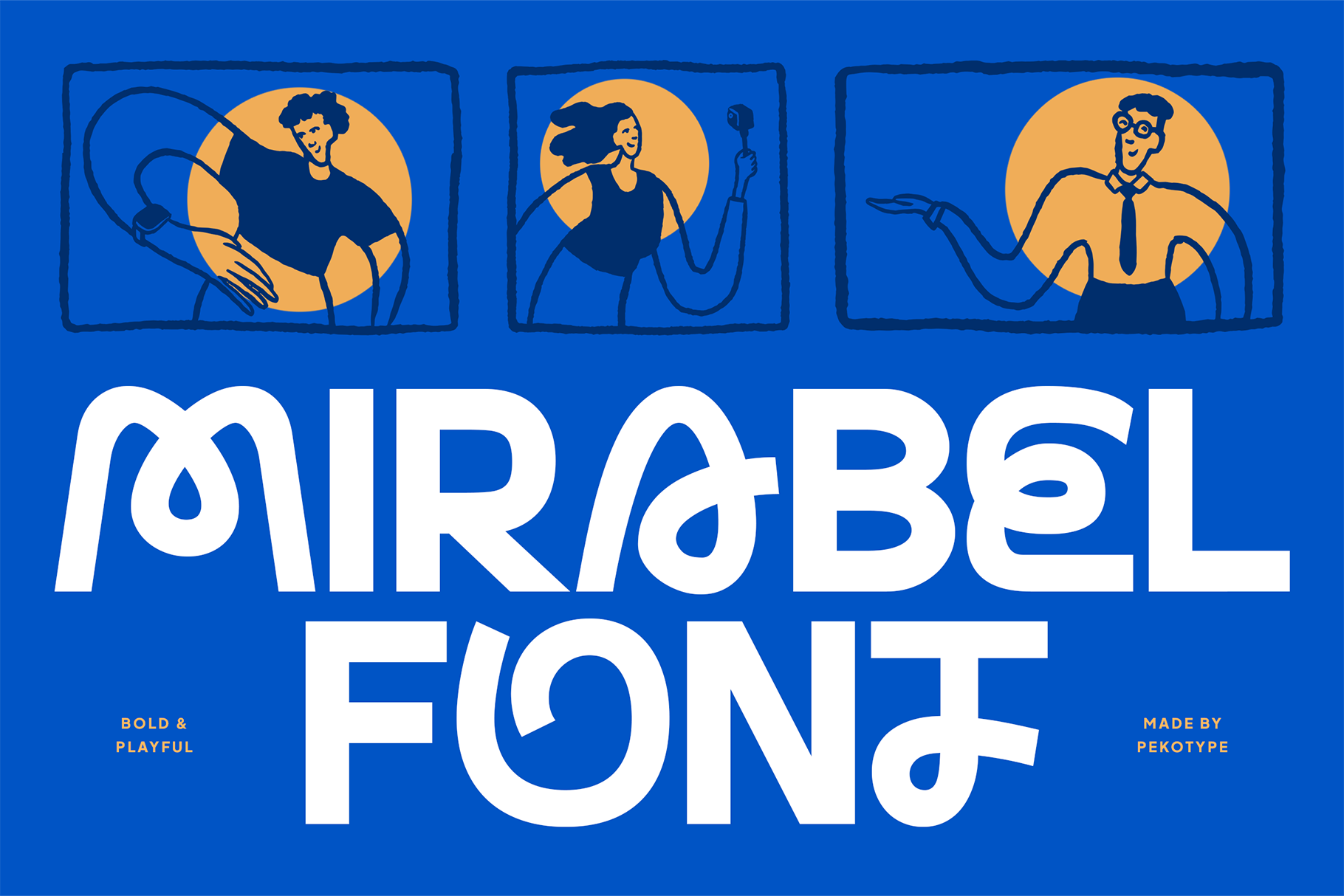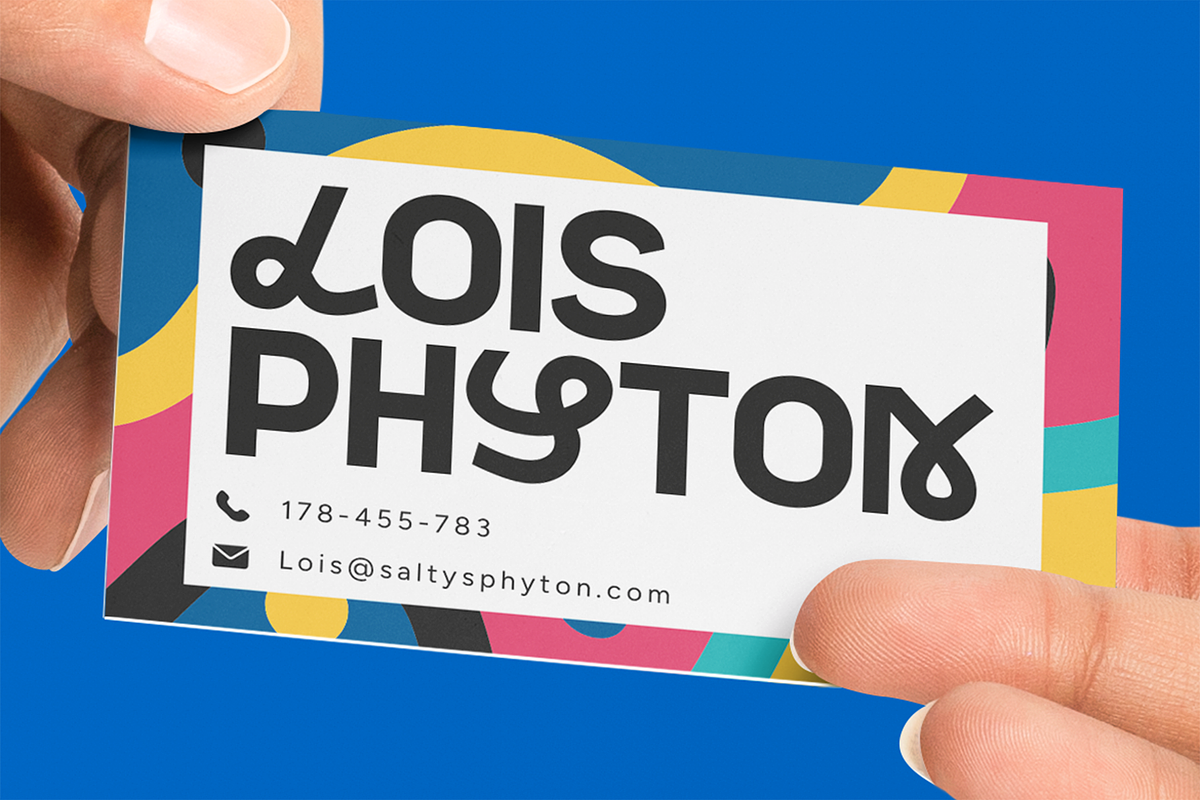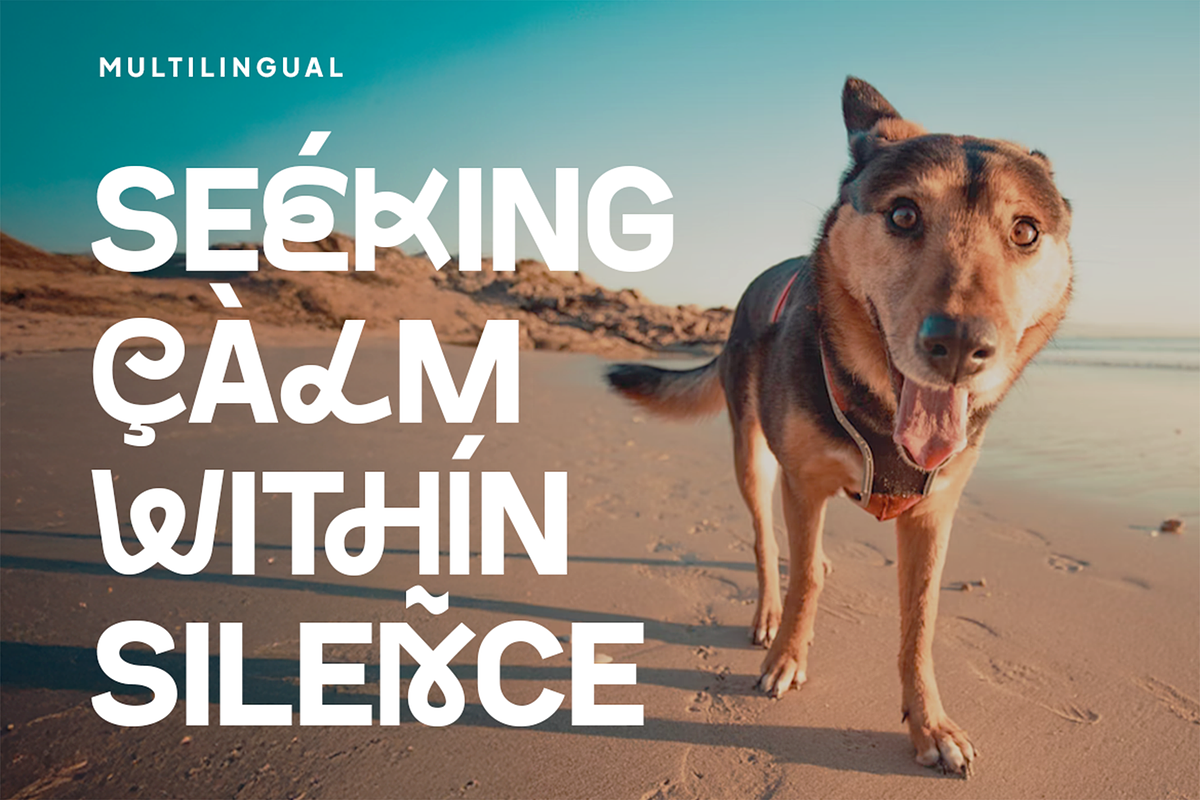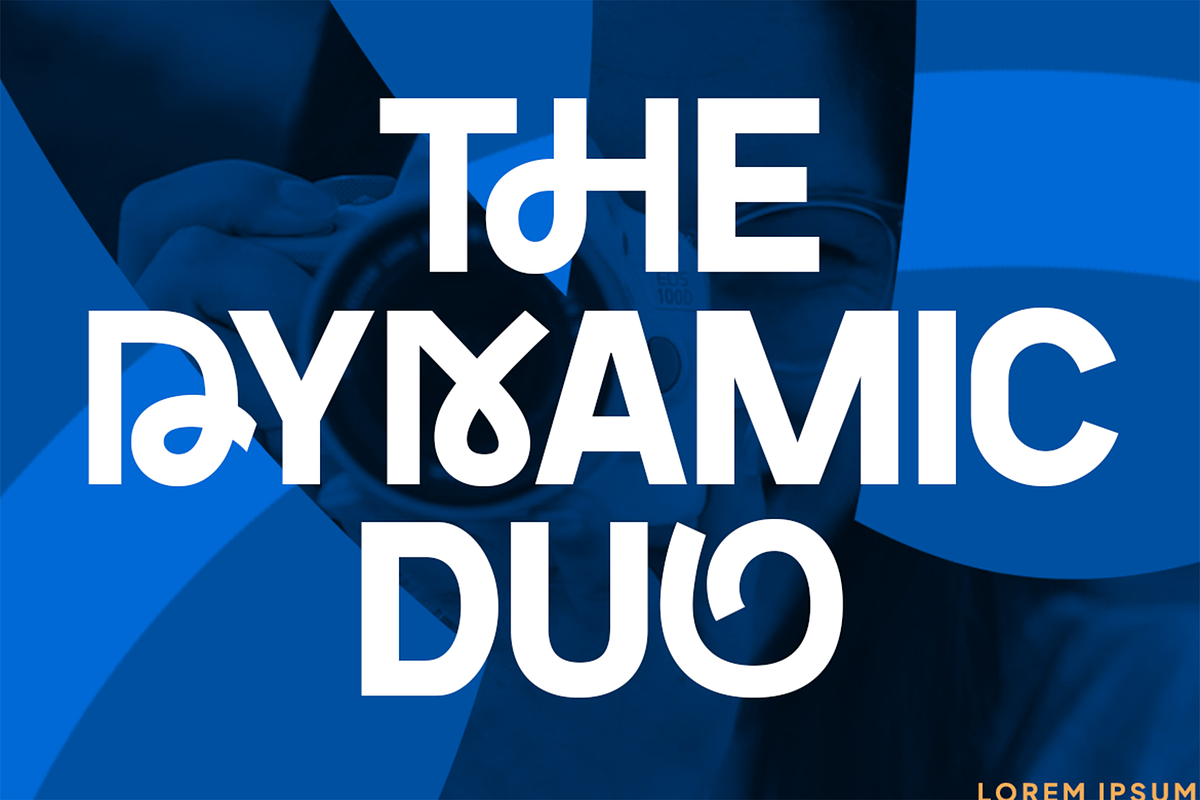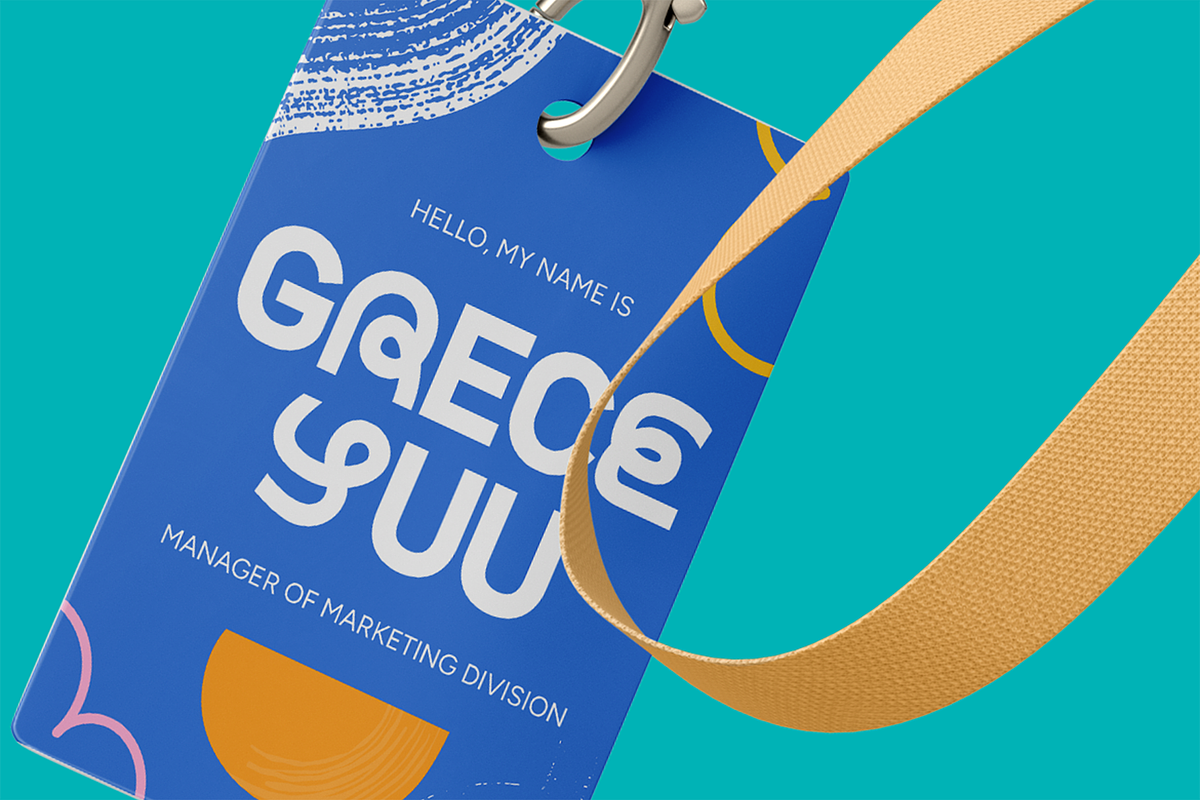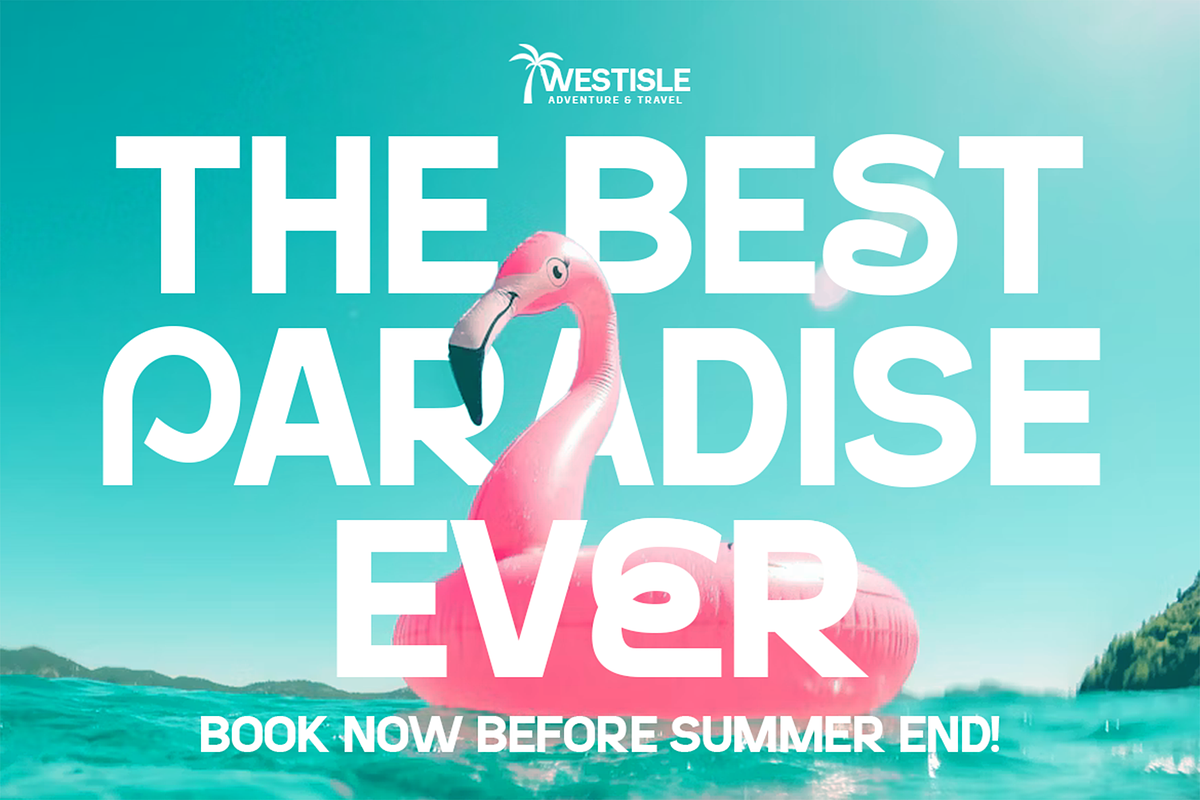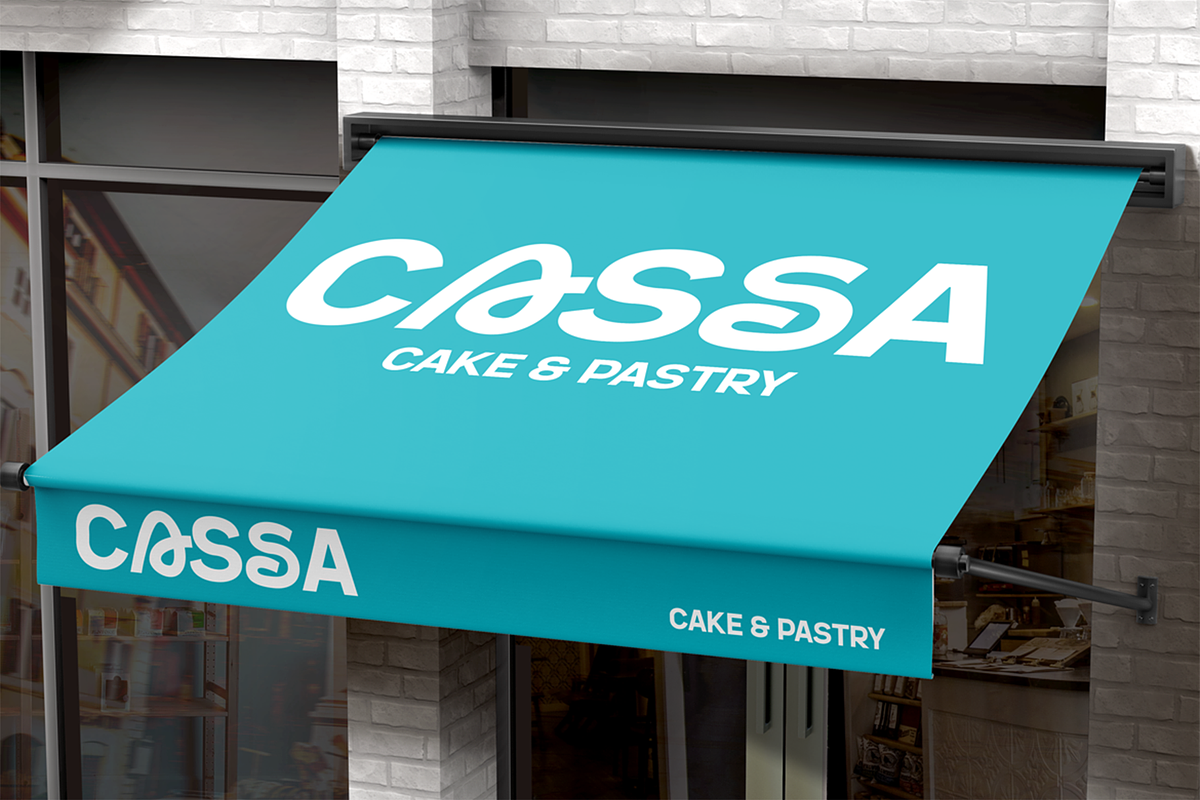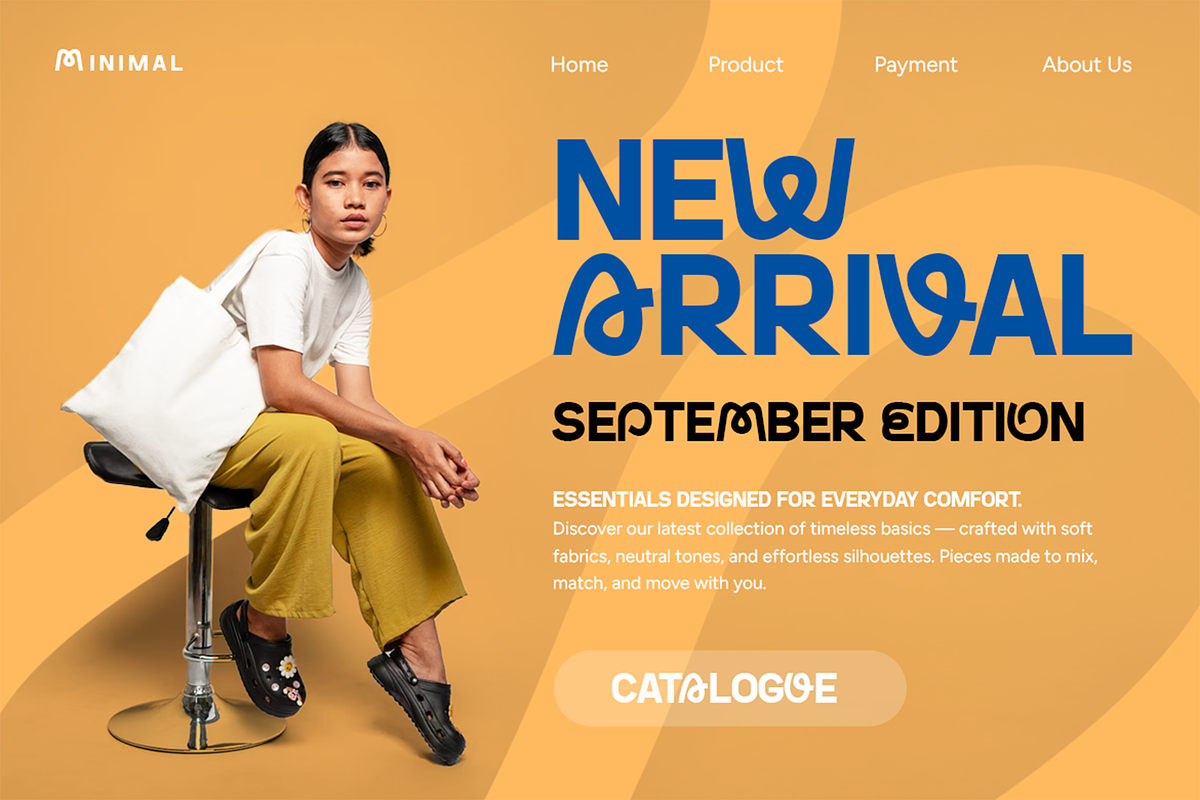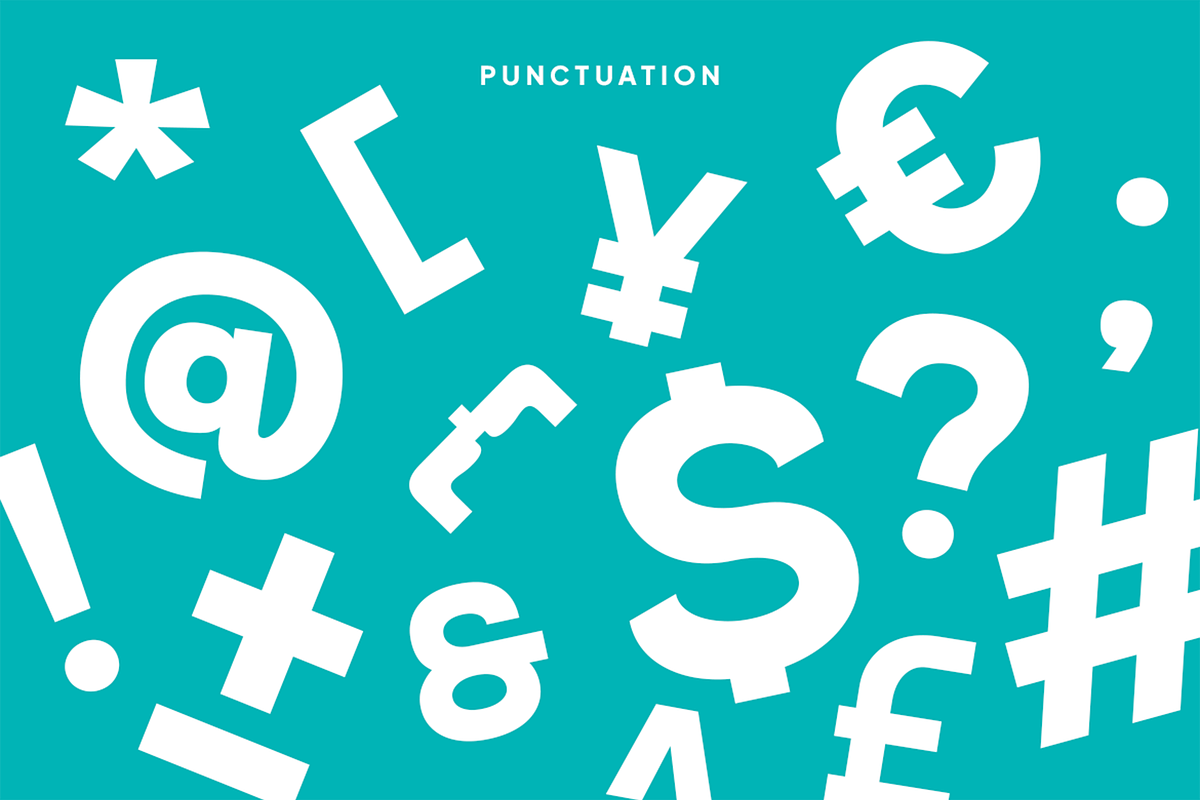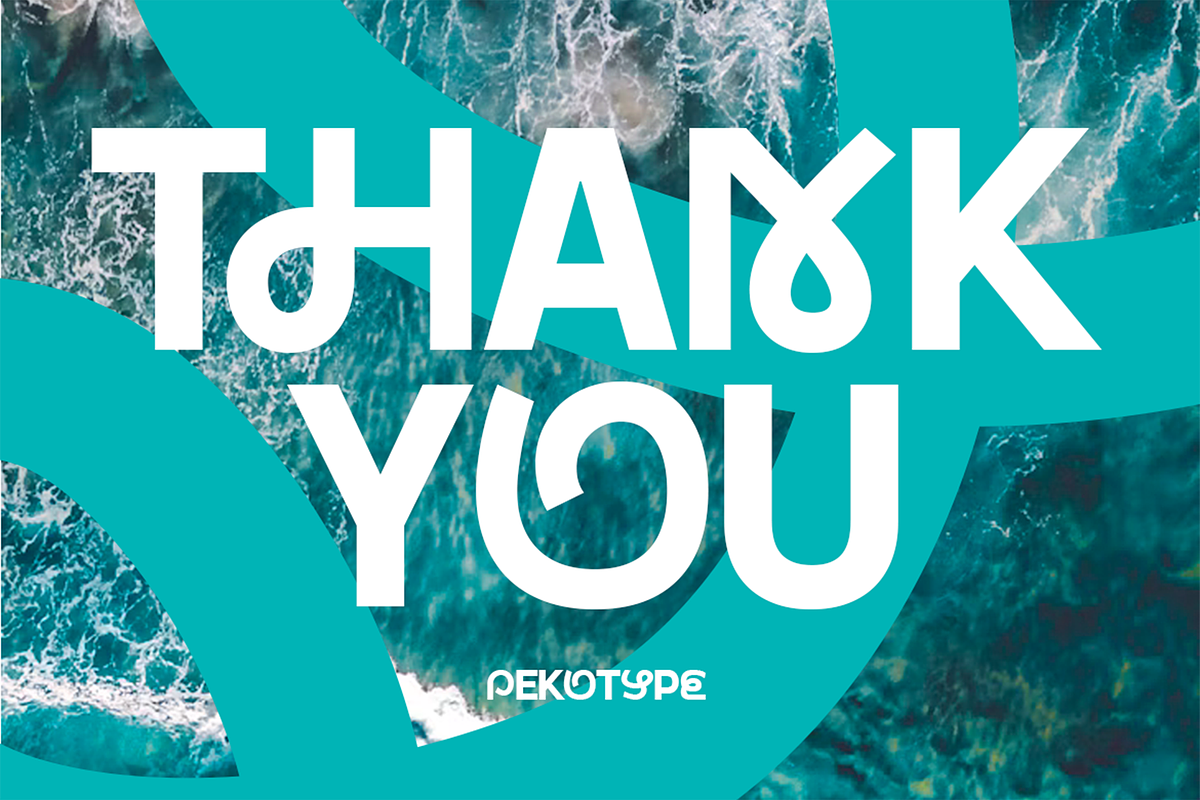
Mirabel - Playful & Dynamic Font
Mirabel – Playful & Dynamic Display Font
Introducing Mirabel, a bold and playful display font full of energy and movement. Designed to bring fun and personality into every project, Mirabel combines dynamic letterforms, bold curves, and creative alternates that make your design stand out effortlessly.
Perfect for branding, logos, posters, packaging, marketing materials, and social media designs, Mirabel gives your typography a fresh and lively feel. Its smooth rhythm and confident shapes make it ideal for projects that demand both impact and character.
This font comes with uppercase and lowercase characters, unique alternates, and full multilingual support, giving you creative freedom to craft standout visuals across any platform.
Bring your words to life with Mirabel, the bold and dynamic font that adds a spark of playfulness to every design.